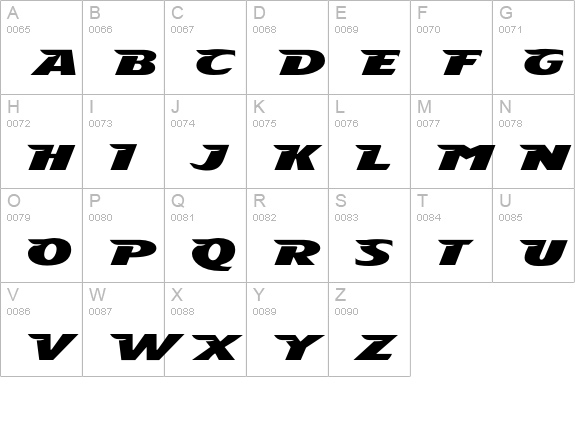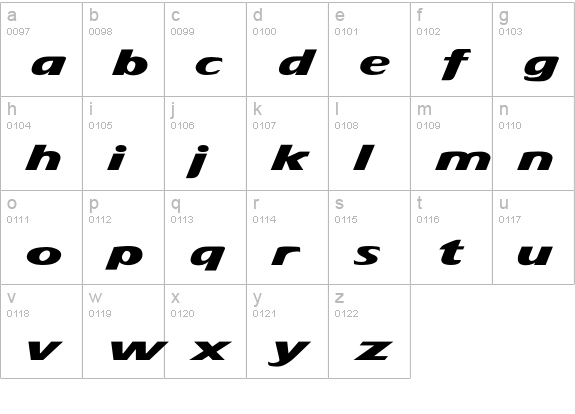
Introducing Stingray font, a sleek and modern typeface designed to make a bold statement in your designs. With its clean lines and contemporary feel, Stingray is perfect for a wide range of projects, from branding to advertising, packaging, and more. This versatile font exudes sophistication and style, making it a standout choice for any creative endeavor. Best of all, Stingray font is available for free download at FontsMarket.com, allowing you to elevate your designs without breaking the bank. Whether you're a seasoned designer or just starting out, Stingray font offers a professional and polished look that will set your work apart. Download Stingray font today and take your projects to the next level!